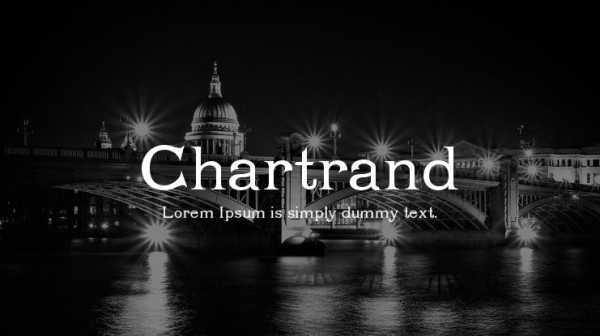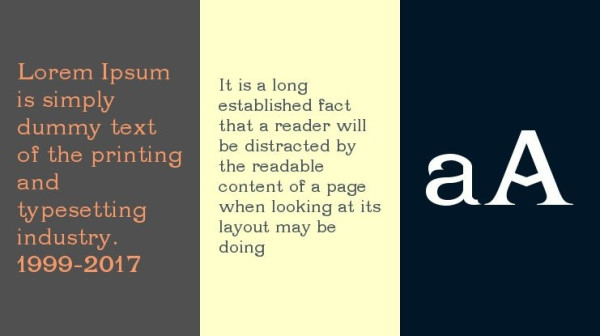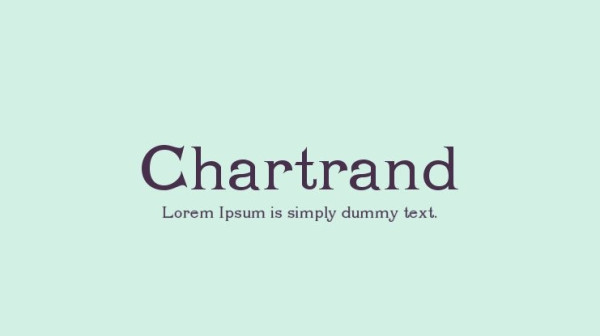
Chartrand Font, This serif font is stylish and sophisticated. It has a classic feel with thin strokes, sharp angles, and elegant curves. Genio is perfect for any project looking to add a touch of class. This font is PUA encoded which means you can access all glyphs and swashes effortlessly!
Chartrand Font
| Classification: | Serif Fonts, Style / Aesthetic Fonts |